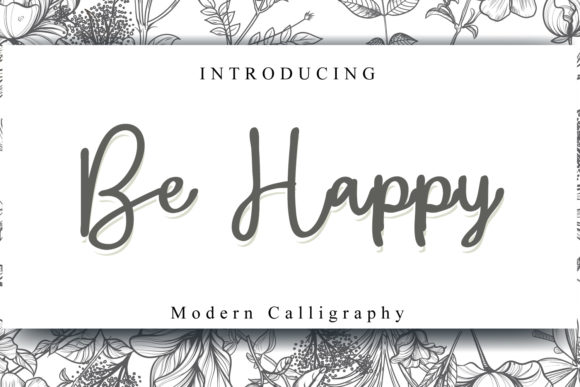
Introducing Be Happy Font: The Elegant and Timeless Choice for Your Design Needs
Are you tired of using the same old fonts for your design projects? Look no further than Be Happy Font, a beautiful and flowing handwritten font that is sure to elevate your designs to the next level. With its elegant touch and incredibly distinct style, Be Happy Font is the perfect choice for anyone looking to add a touch of sophistication and whimsy to their work.
What is Be Happy Font?
Be Happy Font is a type of script font that is characterized by its flowing and handwritten style. It is designed to mimic the look and feel of traditional handwriting, with each letter and word carefully crafted to create a sense of movement and fluidity. The font is the brainchild of a talented designer who sought to create a unique and eye-catching typeface that would stand out from the crowd.
The Features of Be Happy Font
So, what makes Be Happy Font so special? Here are just a few of its key features:
- Elegant touch: Be Happy Font has an undeniably elegant feel to it, making it perfect for designs that require a touch of sophistication.
- Flowing style: The font’s flowing script style gives it a sense of movement and energy, making it perfect for designs that need to capture the viewer’s attention.
- Handwritten feel: Despite being a digital font, Be Happy Font has a wonderfully handwritten feel to it, making it perfect for designs that require a personal touch.
- Distinct and timeless style: Be Happy Font has a unique and timeless style that sets it apart from other fonts. Its classic look ensures that it will never go out of fashion.
Uses for Be Happy Font
Be Happy Font is an incredibly versatile font that can be used for a wide range of design projects. Here are just a few ideas to get you started:
- Wedding invitations: Be Happy Font is perfect for wedding invitations, with its elegant and sophisticated style making it ideal for formal events.
- Branding and logos: The font’s unique and eye-catching style makes it perfect for branding and logos, helping your business to stand out from the crowd.
- Social media graphics: Be Happy Font is also great for social media graphics, adding a touch of personality and whimsy to your posts and updates.
- Packaging design: The font’s flowing style makes it perfect for packaging design, adding a touch of elegance and sophistication to your products.
Why Choose Be Happy Font?
So, why should you choose Be Happy Font for your design needs? Here are just a few reasons:
- Unique style: Be Happy Font has a unique and eye-catching style that sets it apart from other fonts.
- Elegant and sophisticated: The font’s elegant and sophisticated style makes it perfect for designs that require a touch of refinement.
- Easy to read: Despite its flowing script style, Be Happy Font is incredibly easy to read, making it perfect for designs that require a clear and concise message.
- High-quality design: Be Happy Font is designed to the highest standards, ensuring that it looks great in any design.
Tips for Using Be Happy Font
Here are a few tips for getting the most out of Be Happy Font:
- Use it sparingly: Be Happy Font is a bold and eye-catching font, so use it sparingly to avoid overwhelming your design.
- Pair it with other fonts: Be Happy Font looks great when paired with other fonts, so experiment with different combinations to find the perfect look.
- Experiment with colors: Be Happy Font looks great in a variety of colors, so don’t be afraid to experiment and find the perfect hue for your design.
In conclusion, Be Happy Font is a beautiful and elegant font that is perfect for designers looking to add a touch of sophistication and whimsy to their work. With its flowing script style, elegant touch, and incredibly distinct and timeless style, Be Happy Font is sure to elevate your designs to the next level. So why not give it a try and see the difference it can make?
- What is Be Happy Font? Be Happy Font is a flowing handwritten font with an elegant touch, perfect for designs that require a touch of sophistication and whimsy.